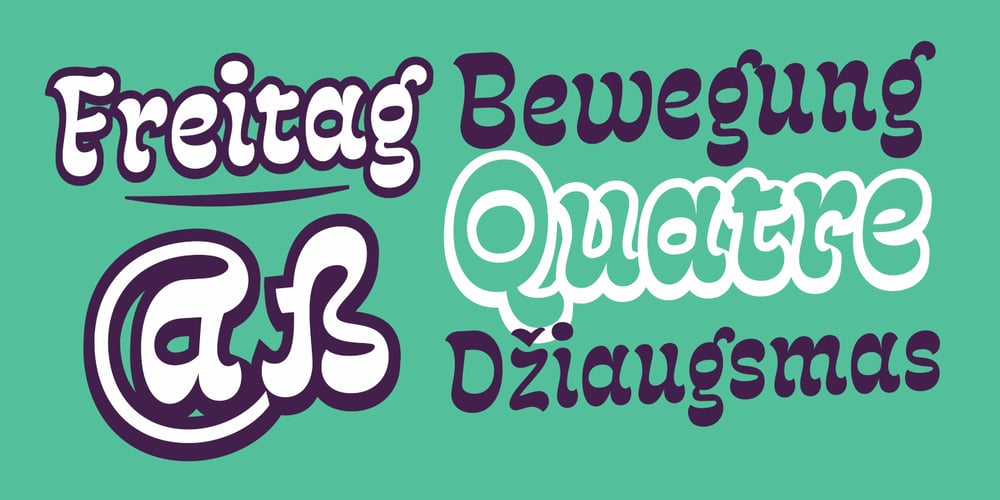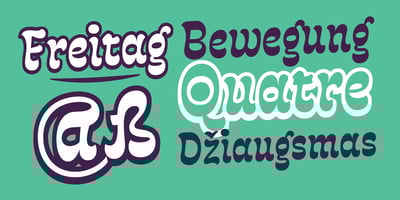
Fonty Font Family was designed by Rodrigo Araya Salas, Franco Jonas Hernández and published by RodrigoTypo. Fonty contains 3 styles and family package options. Fonty, inspired by Spiro, is a very gestural typography special for titles. It contains Regular, Extrude and Spring, with which you can further enhance the message! I hope you enjoy it!